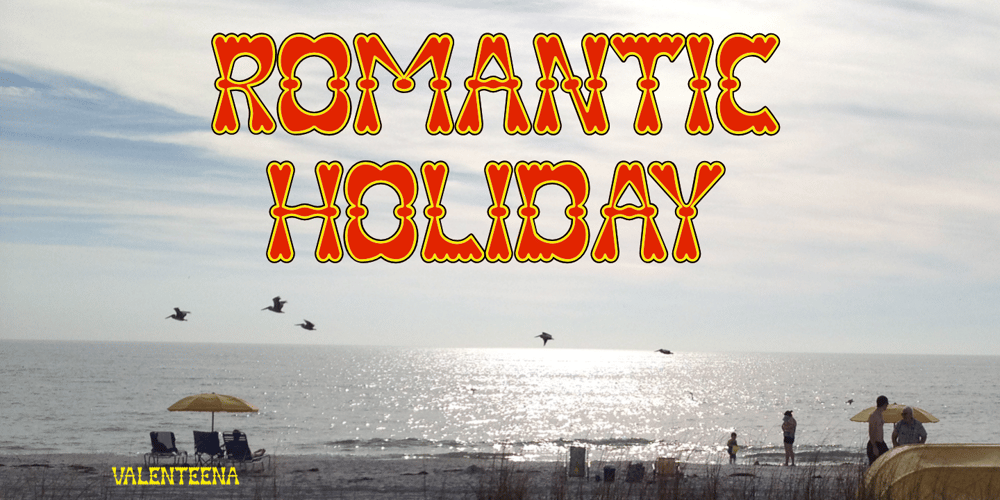
Valenteena Font Family was designed by Robert Schenk and published by Ingrimayne Type. Valenteena contains 6 styles and family package options. Valenteena is in the spirit of the 19th century, but there are no other typefaces quite like it. It is geometric, using distorted hearts to form the letters. The lower-case letters are smaller versions of the upper-case letters.The overlay variant is derived by breaking ValentinaContour into its parts: the inner letter, the white inner border, and the black outer border. To use them one must have a program that allows layers of letters. Type in and format the inside variant to get the message you want. Also select the color you want this layer to have. Copy this layer twice, formatting one to the medium and and the other to outside. Color each of them in the colors you want and them combine the three layers, placing them so the letters exactly align. You will get letters with three colors.